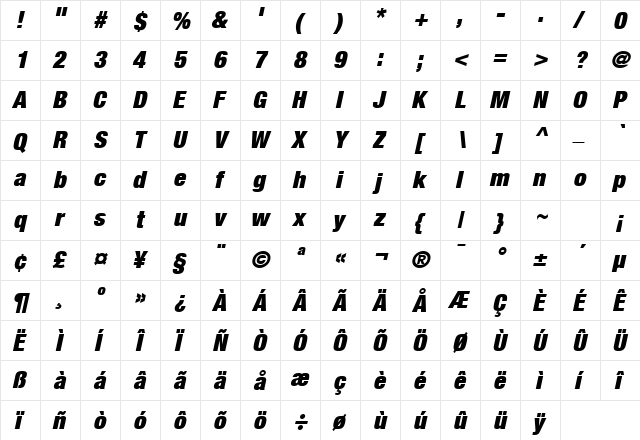
HeaveneticaCond9P UBlkOblSH Font Preview
HeaveneticaCond9P UBlkOblSH
HeaveneticaCond9P UBlkOblSH Font Details
Design Context for HeaveneticaCond9P Typeface
HeaveneticaCond9P takes a measured approach to typography — its balanced proportions and neutral character make it a reliable workhorse for both digital and print work. Its narrow stance lets it pack a punch even in space-constrained designs.